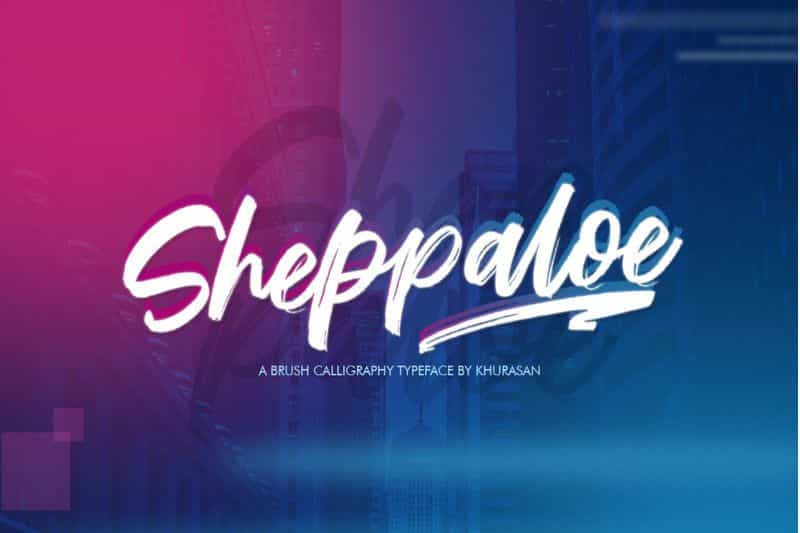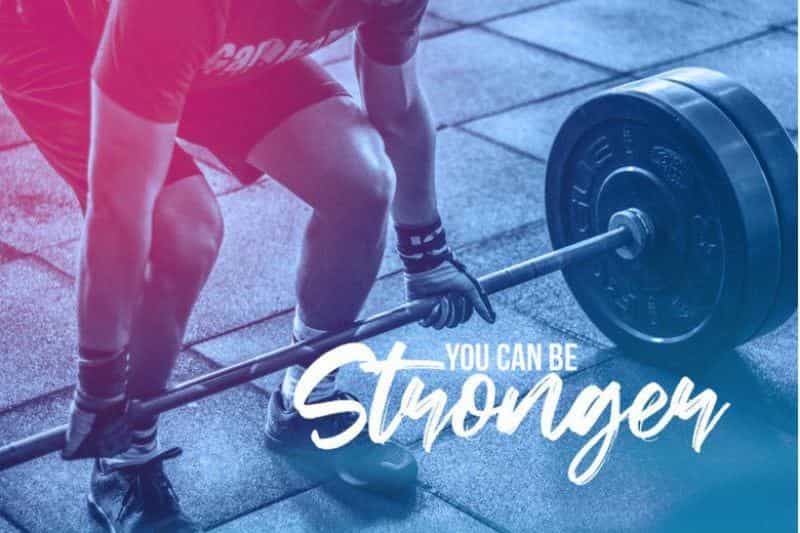
The Sheppaloe is a brush handwritten font fresh and elegant looking old at around 1350. The Sheppaloe font includes full set capital and lowercase letters, as wel. as also multi-lingual support, currency figures, numerals, & punctuation.